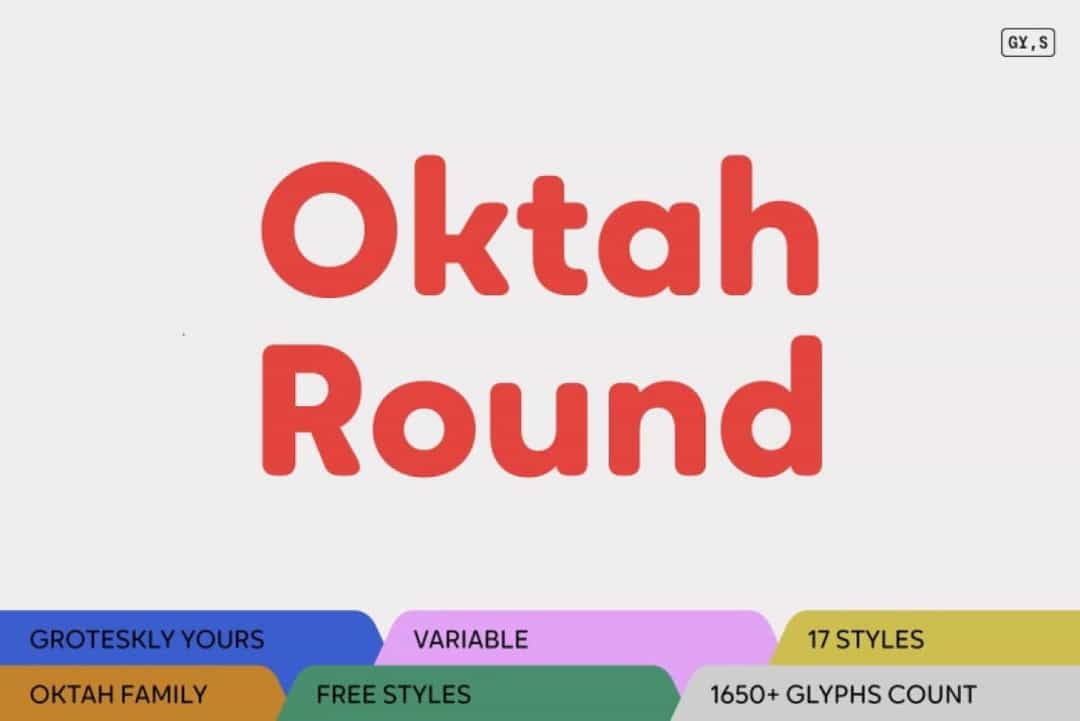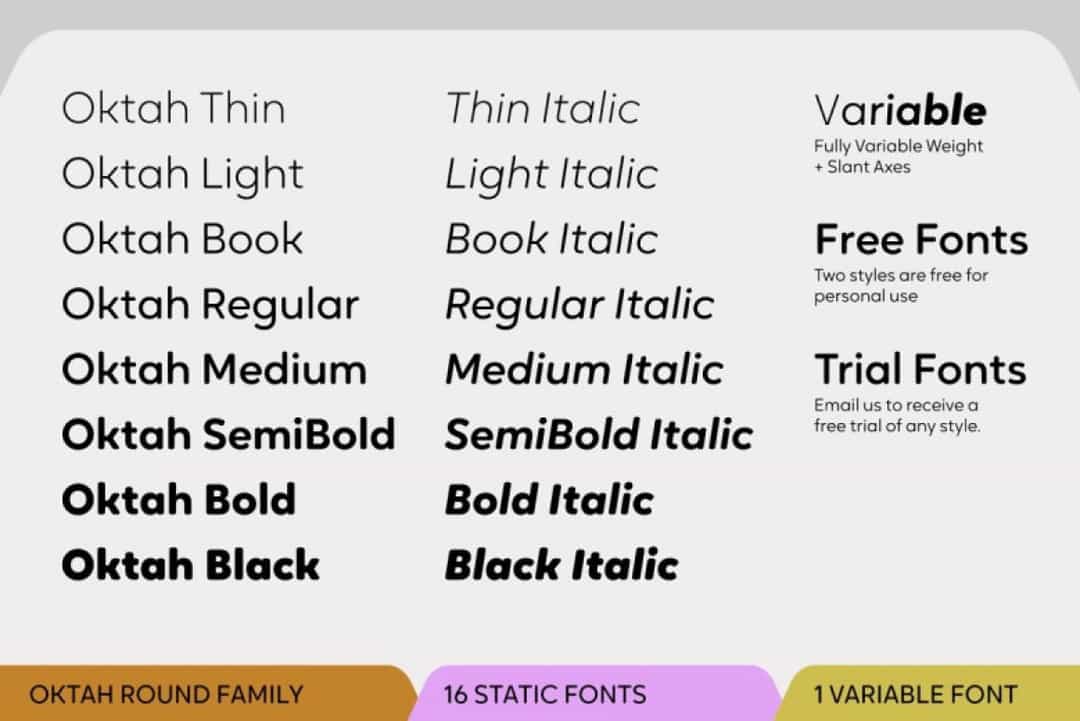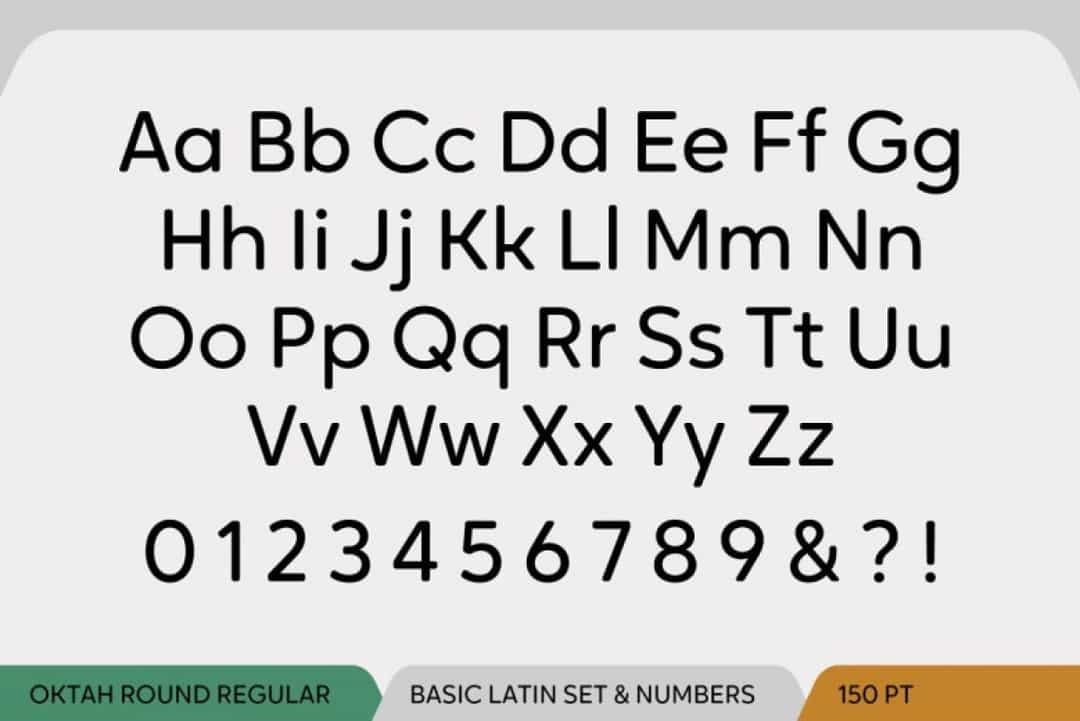
Oktah Round is an updated rounded version of Oktah Neue and provides soft comfort while being contemporary and warm; perfect for modern environments. Equipped with over 1600 characters per font (Thin to Black) as well as being variably font so you can adjust weight and slant angle, Oktah Round supports over 200 Latin languages as well as Cyrillic ones such as Bulgarian, Russian Serbian Ukrainian etc.